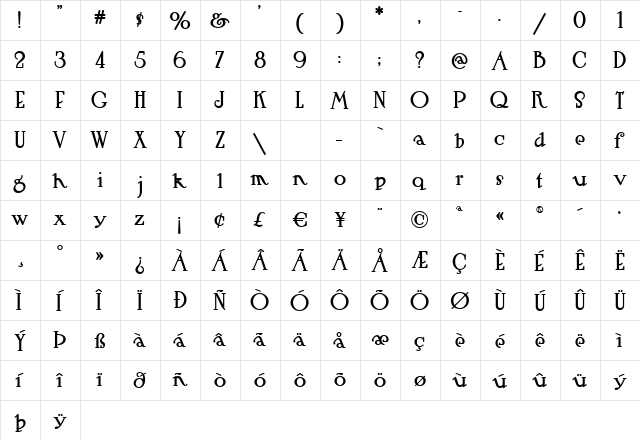
HutSutRalston Regular
Design Context for HutSutRalston Typeface
HutSutRalston is a composed and adaptable typeface that performs quietly and consistently across a wide range of design contexts.